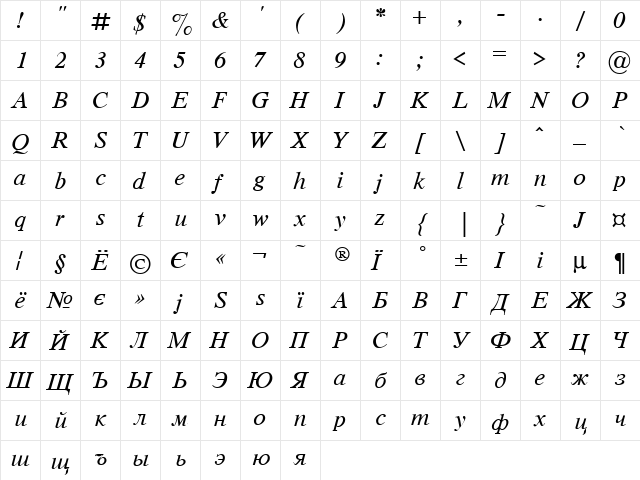
Dutch Italic
Design Context for Dutch Typeface
Dutch is a composed and adaptable typeface that performs quietly and consistently across a wide range of design contexts. The slanted form adds forward momentum and visual energy.
Pro Tip: Try Dutch for annotation and caption copy alongside an upright companion — the contrast in angle creates a dynamic but ordered typographic system.